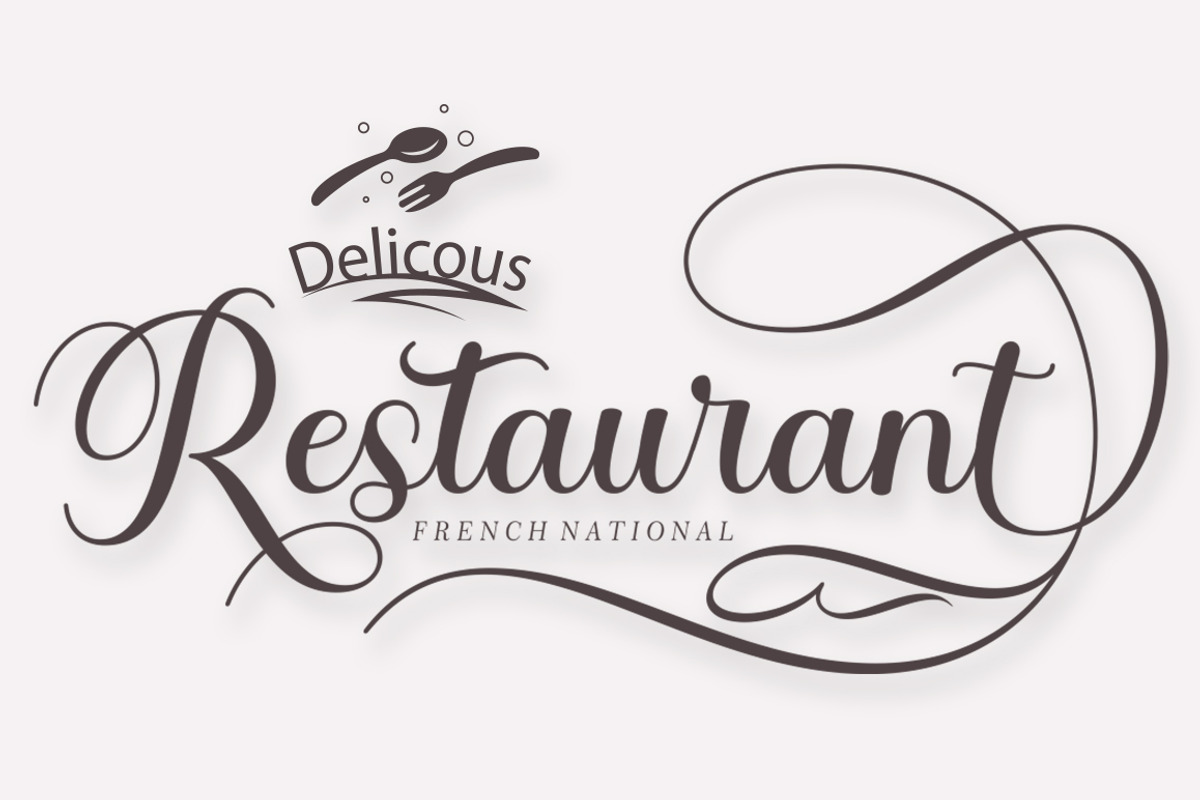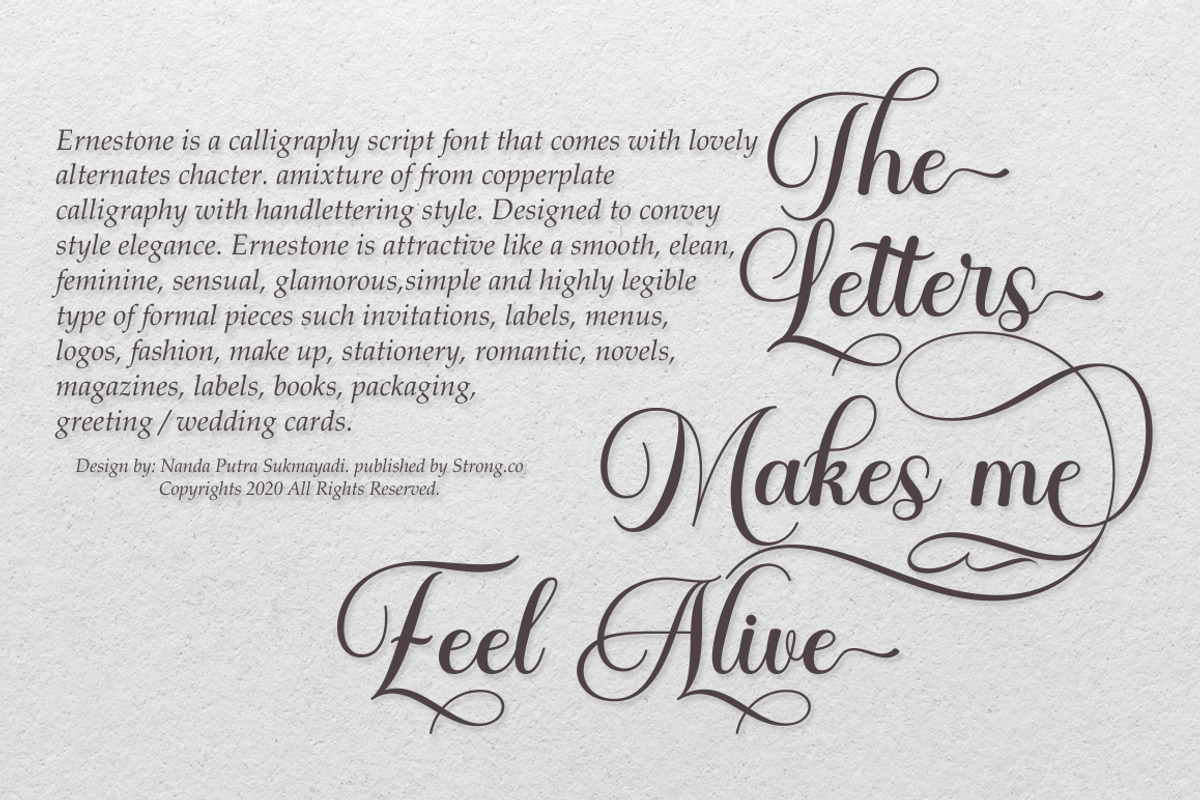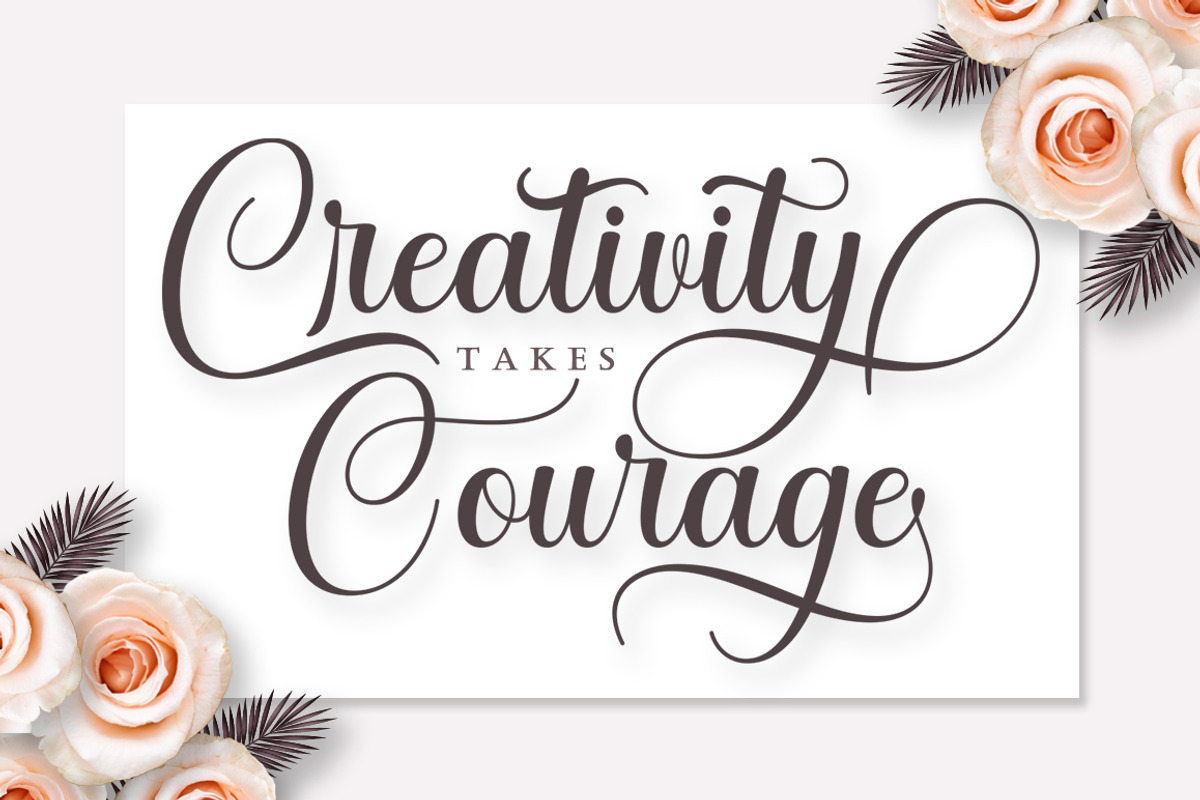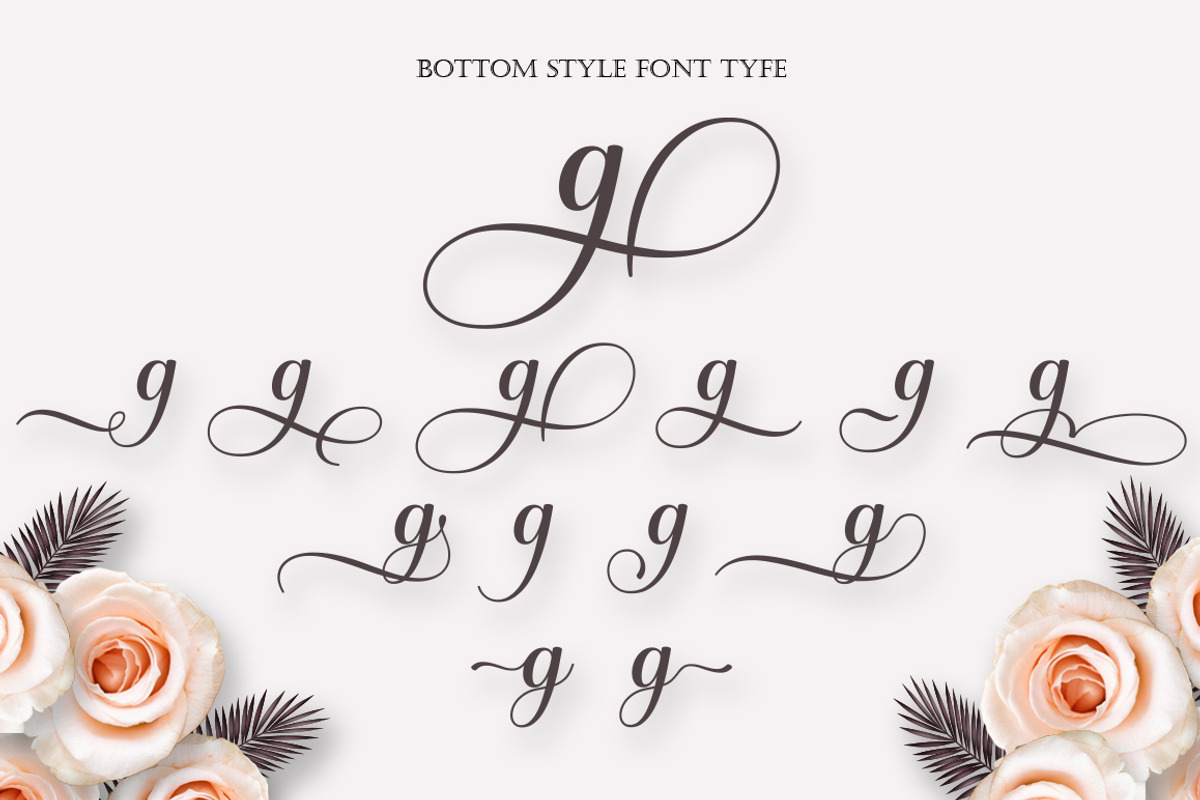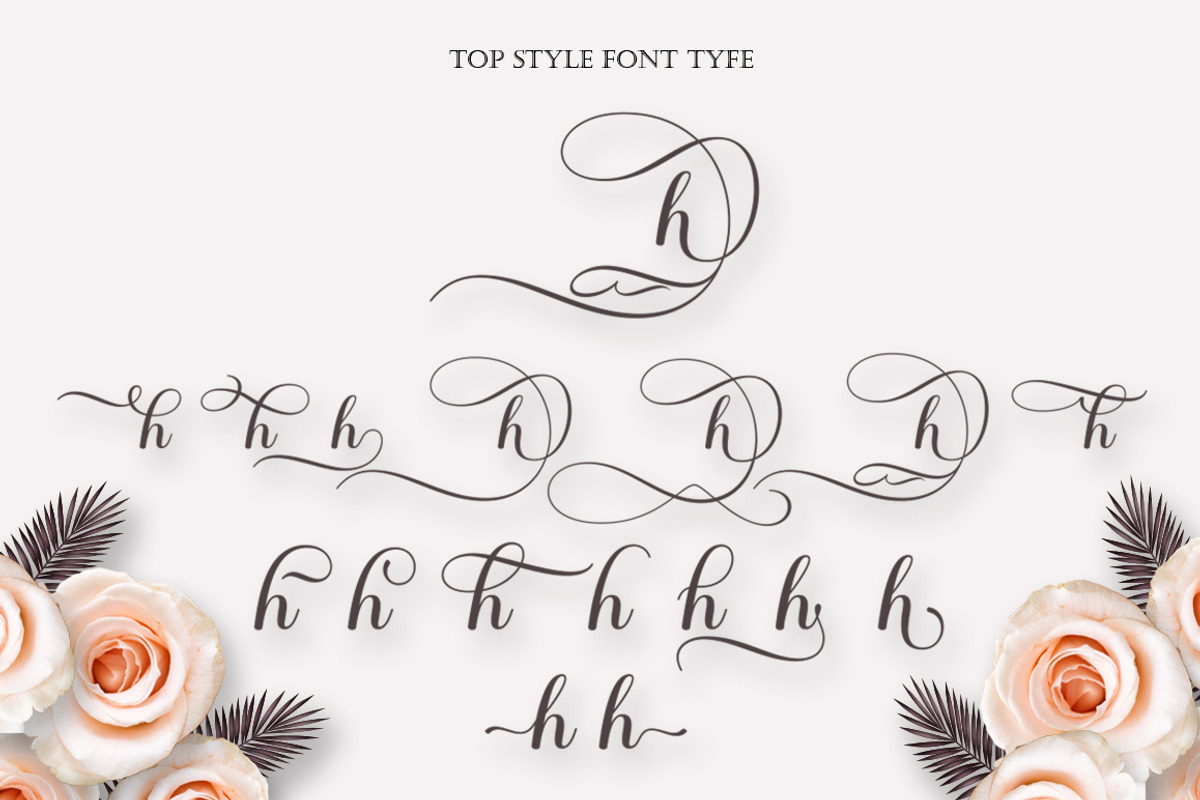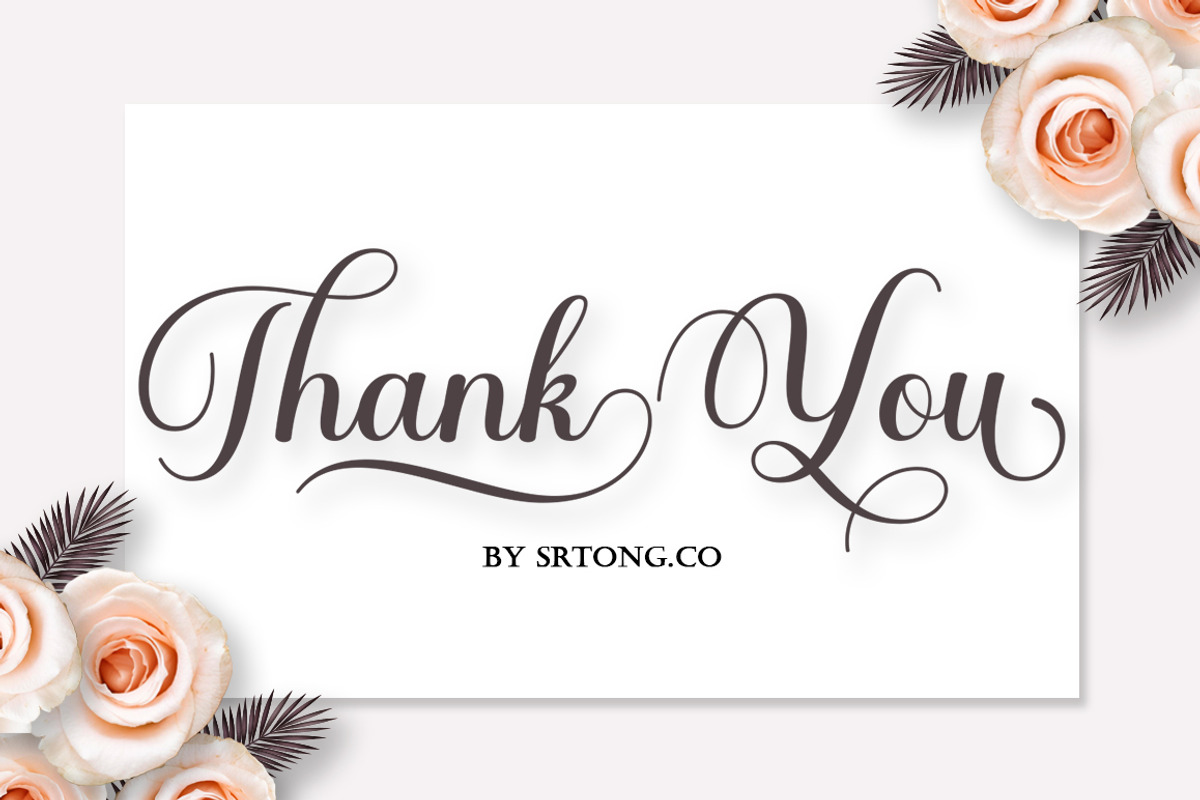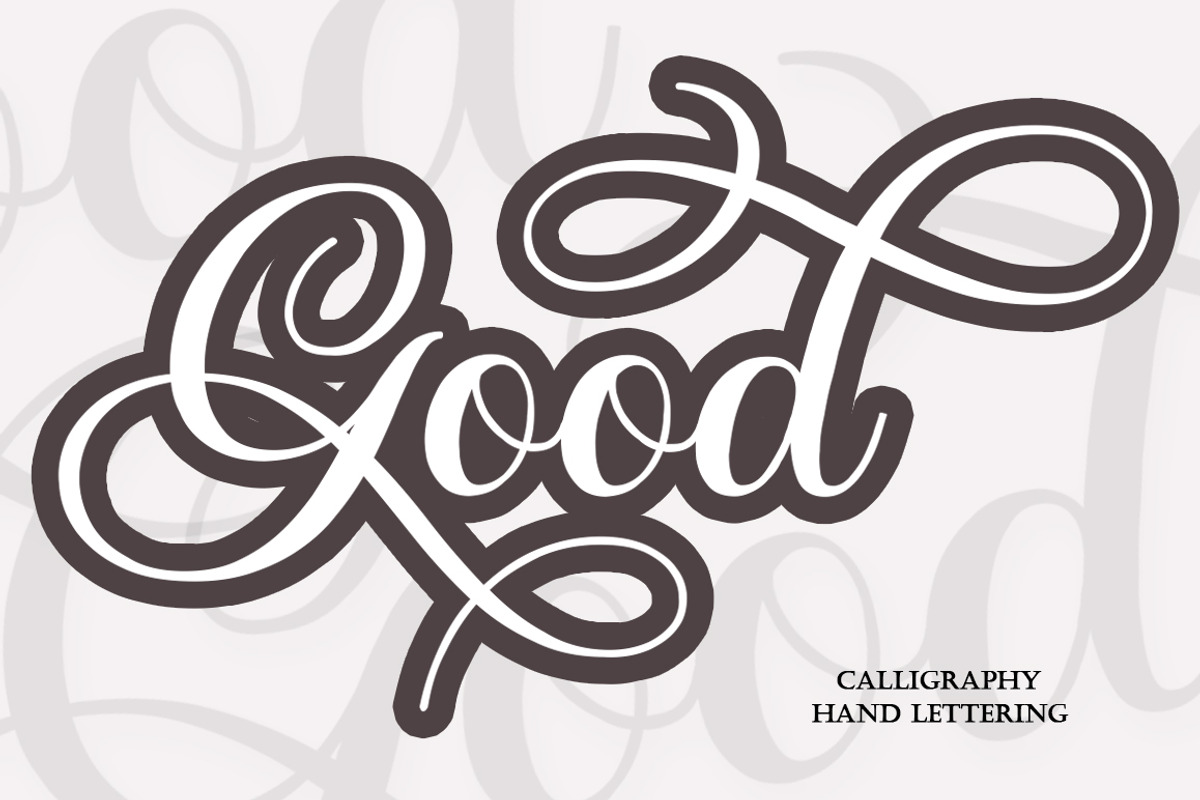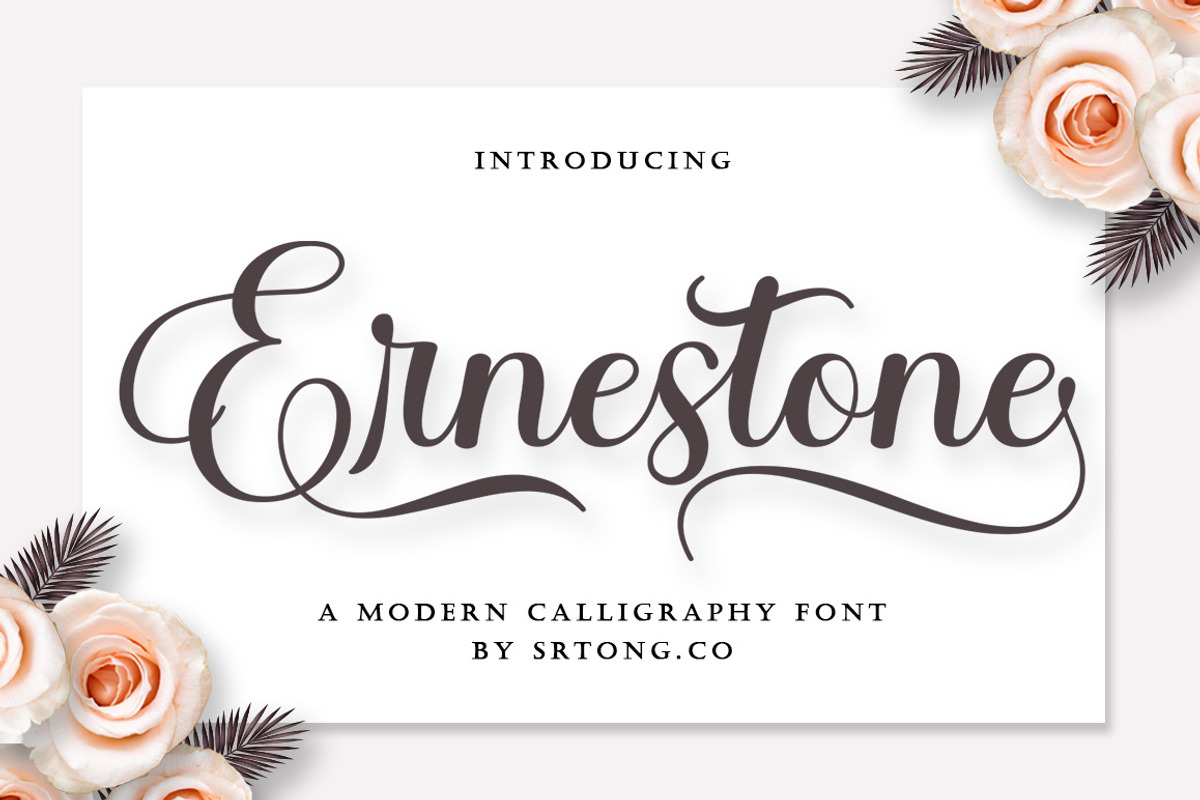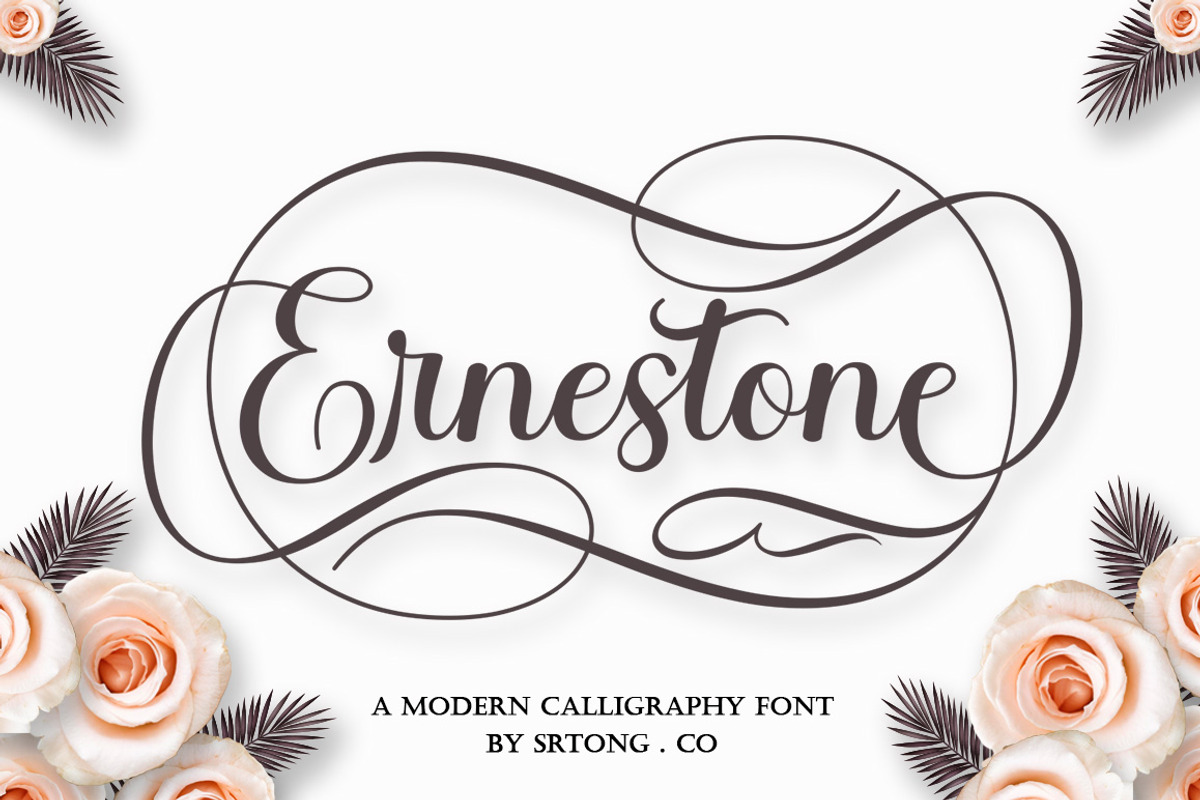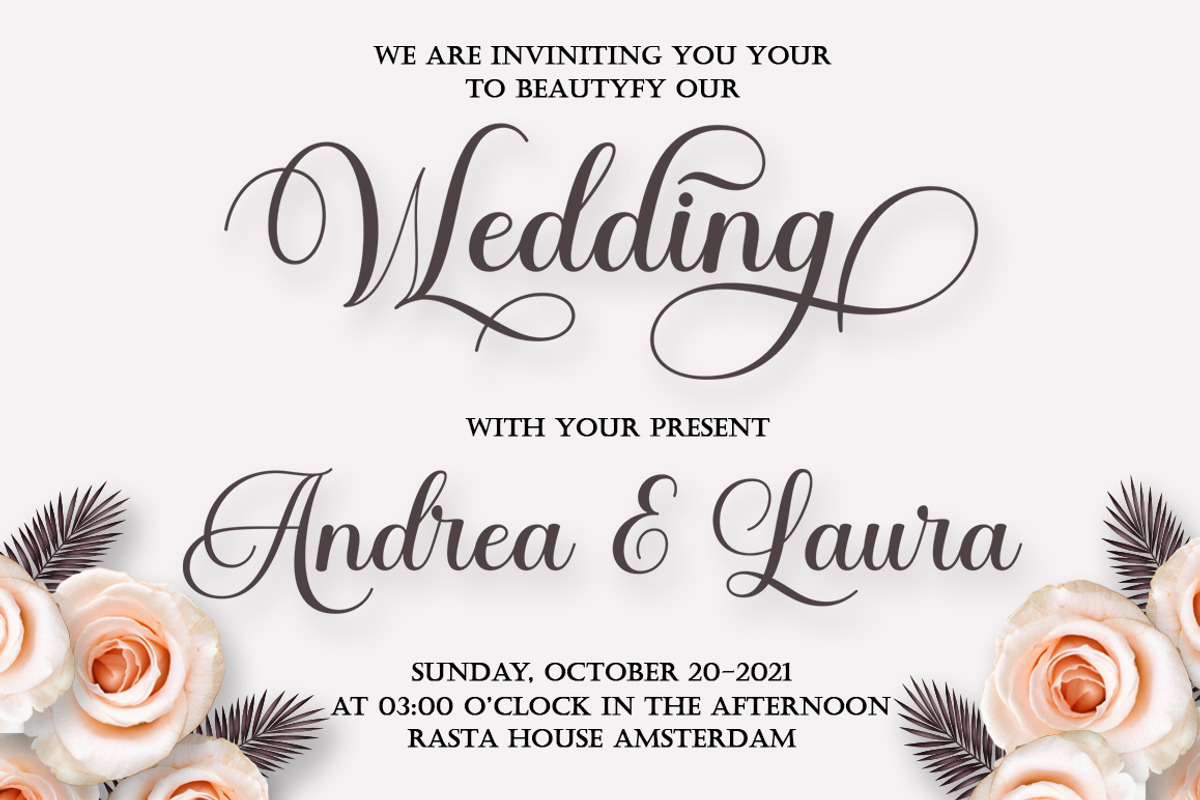
Ernestone Script
Ernestone Script a fresh & modern new script with a handcrafted calligraphy style, decorative characters and dancing baseline! Very pretty for invitations such as greeting cards, branding materials, business cards, quotes, posters and more!!
Ernestone Script comes with 476 glyphs. Alternative characters are divided into several Open Type features such as Swash, Stylistic Sets, Stylistic Alternate, Contextual Alternate. The Open Type feature can be accessed using Open Type savvy programs such as Adobe Illustrator, Adobe InDesign, Adobe Photoshop version of Corel Draw X, and Microsoft Word. And this Font has provided PUA unicode (custom coded font). so that all alternative characters can be easily accessed in full by a craftsman or designer.
Ernestone Script: Uppercase & Lowercase Letters International Languages & Symbols Support Punctuation & PUA Numbers Unicode Range Standard Alternative Style